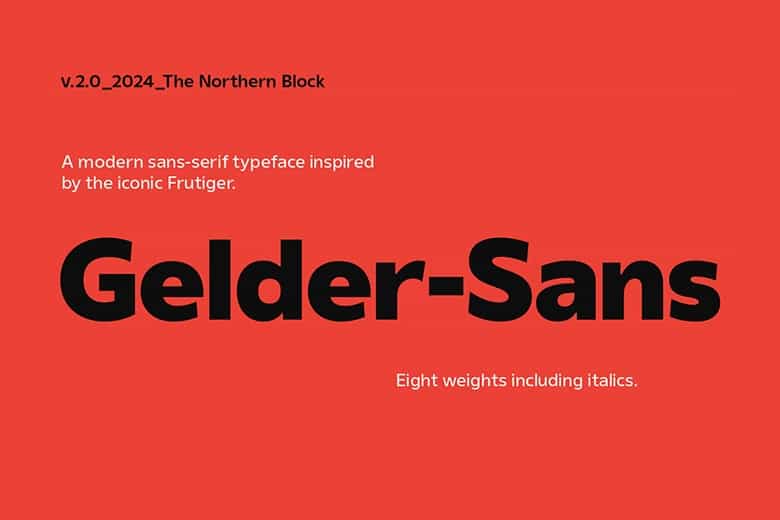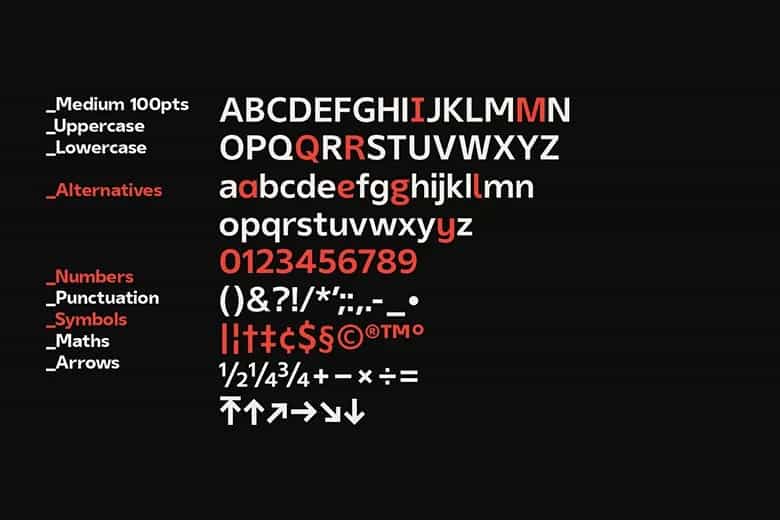
Gelder Sans Font Family
Gelder Sans is a fresh sans serif font family that has characters that are visible in any given environment. Gelder Sans behaves differently than the grotesque or the humanist typeface but it incorporates the best from both and omits the rest. Gelder Sans has a high legibility and a nice feeling due to its organic shaped letters, open counters and even stroke weights. It is suitable for use in different fields ranging from the digital interface to the print media.